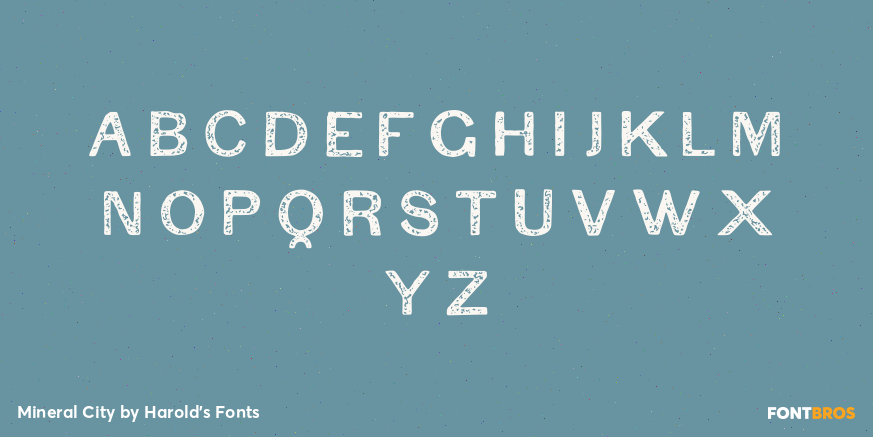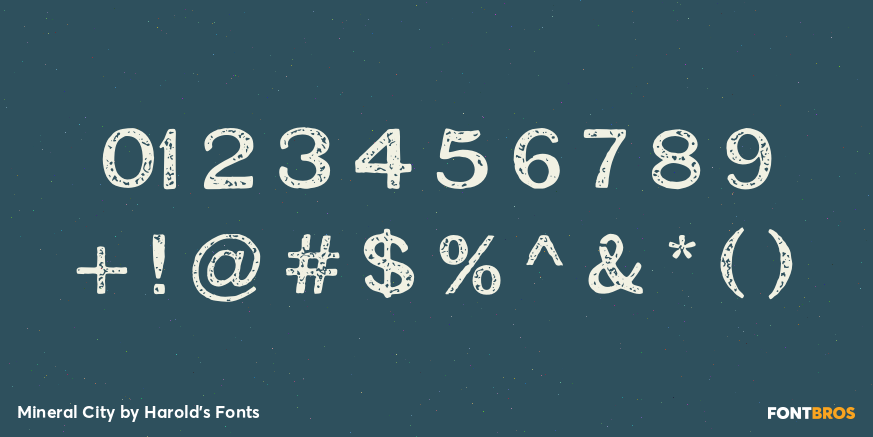
Mineral City
Font Family by Harold's Fonts
Mineral City was inspired by an example of 19th-century sans serif typography. These early fonts are categorized as "grotesques" and this is a particularly awkward one. I've added more texture to give it the rustic flavor of crude printing, rough paper, worn surfaces, or even a hand-panted sign.